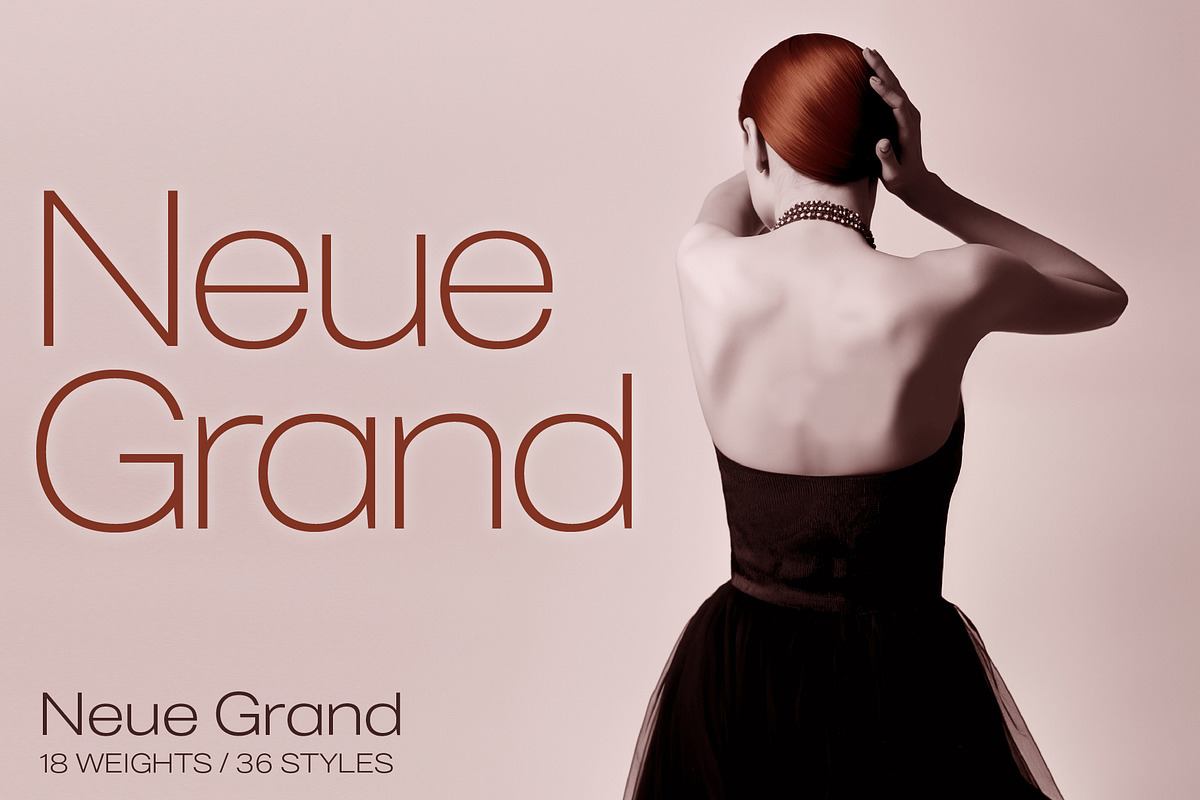
Neue Grand Sans Serif Free Download
Neue Grand Sans Serif Font Free Download
You must purchase this font for commercial use. However, you can download Neue Grand Sans Serif Font Free Download for testing purposes. Neue Grand is a modern and sleek sans-serif font, designed with simplicity and elegance in mind. Its clean lines, balanced proportions, and professional appearance make it perfect for a wide range of design projects, including branding, website design, editorial layouts, advertising, and corporate materials.
The font offers excellent readability and versatility, making it suitable for both headlines and body text. Whether you are creating minimalist designs or working on more sophisticated corporate branding, Neue Grand Sans Serif Font Free Download will add a modern and polished touch to your projects.